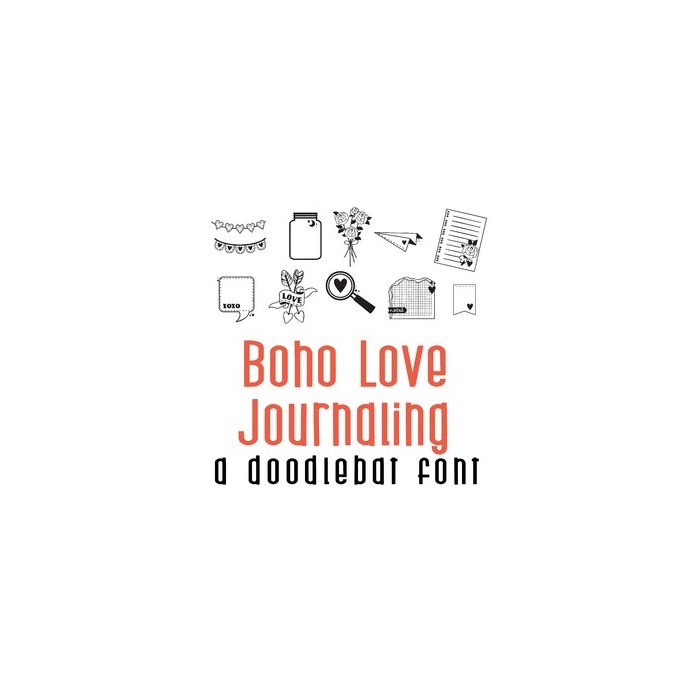
This fun doodlebat font features 26 boho-style valentine journaling and planner sticker images. Perfect for cards, crafts, gifts, decor, scrapbook pages, planner stickers, and more!